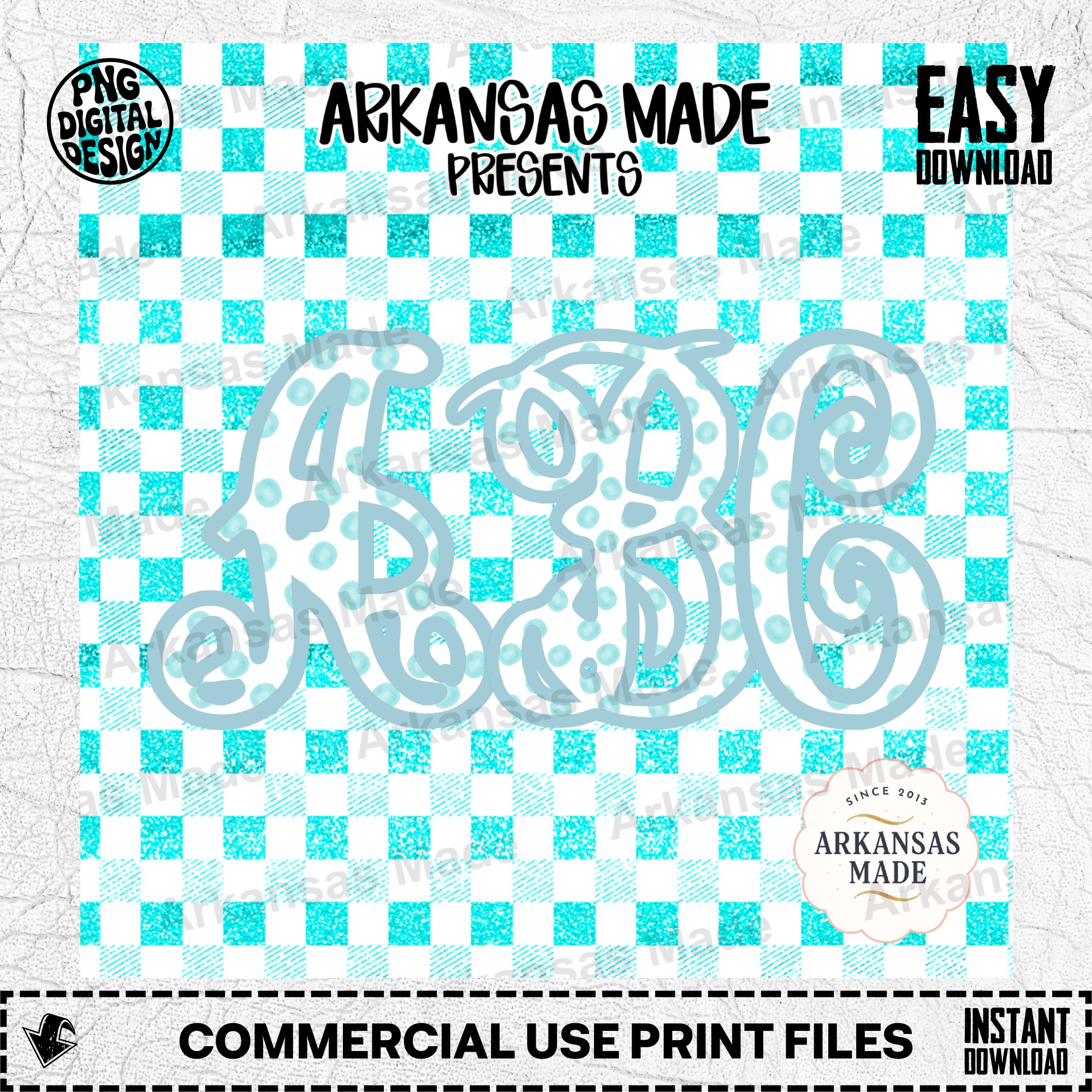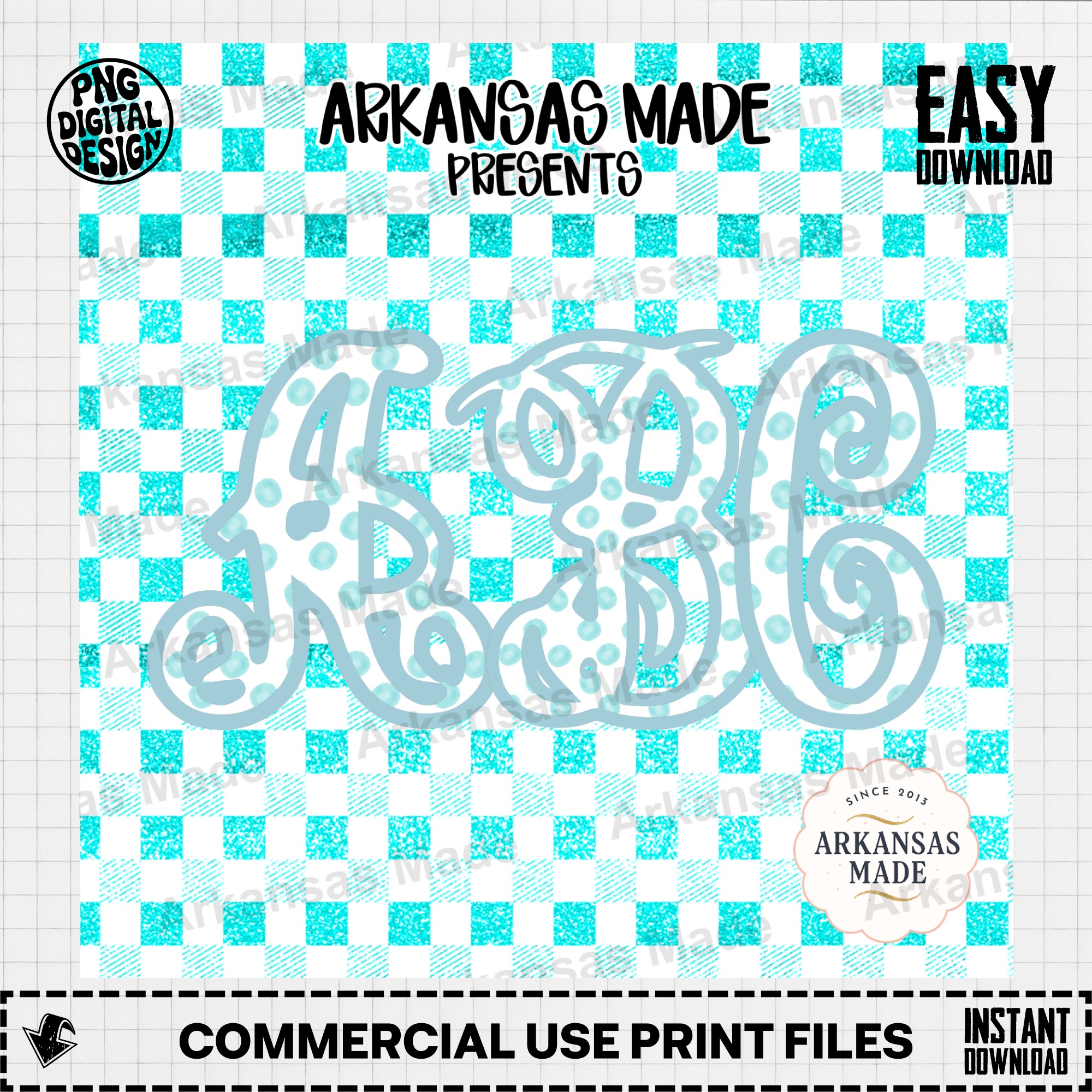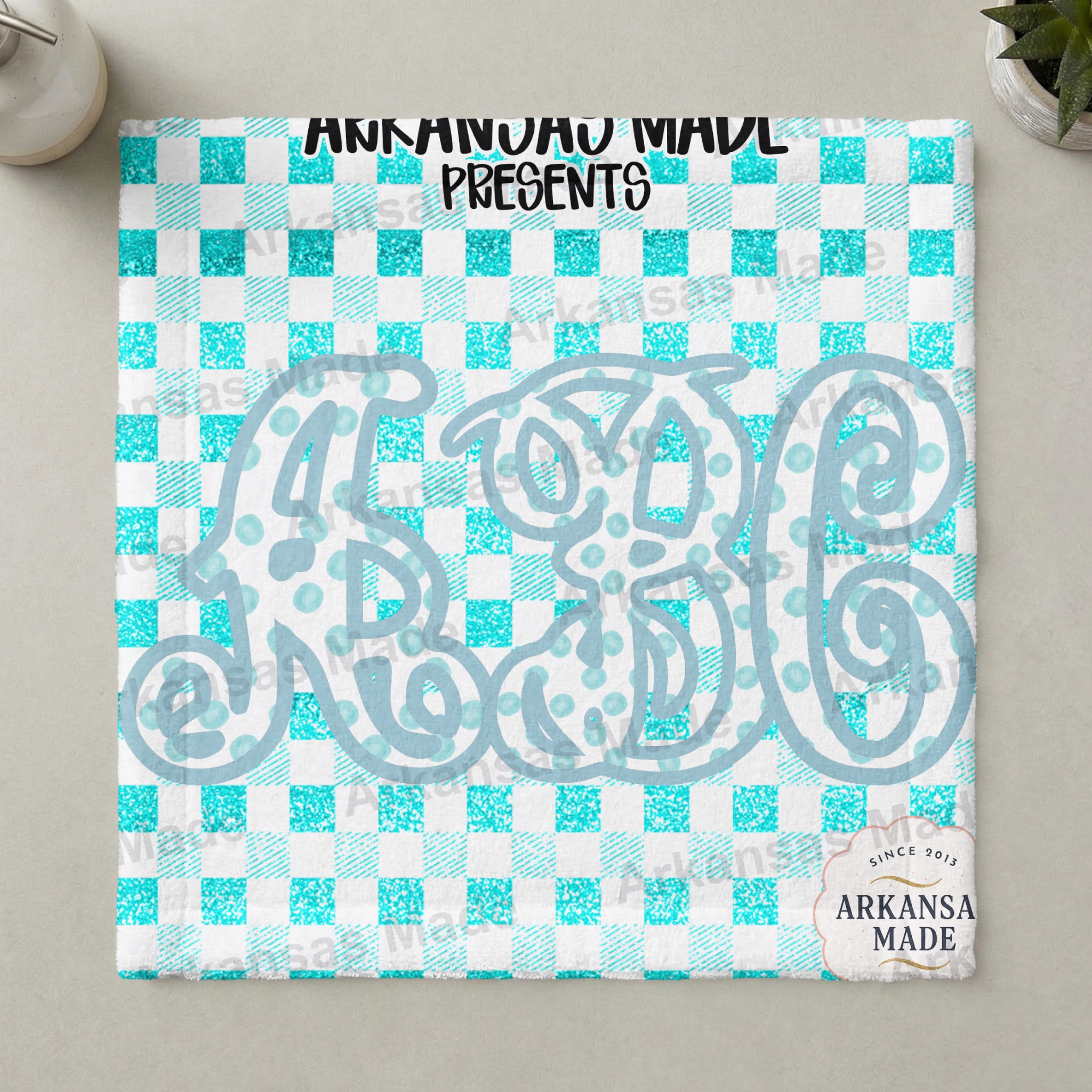
Faux Glitter Monogram Alphabet SVG Font, Polka Dot Alpha Set Digital Download, Custom Letter Clipart Bundle
Create stunning personalized items with this Faux Glitter Polka Dot Monogram Alphabet SVG Digital Download Alpha Set, perfect for unique crafts! Embrace a preppy and playful aesthetic with these vibrant aqua and white letters, featuring a charming dotted fill and sparkling faux glitter effect. Ideal for crafters, DIY enthusiasts, and small business owners creating custom gifts or personalized decor. Perfect for baby showers, sorority events, or adding a unique touch to any project.